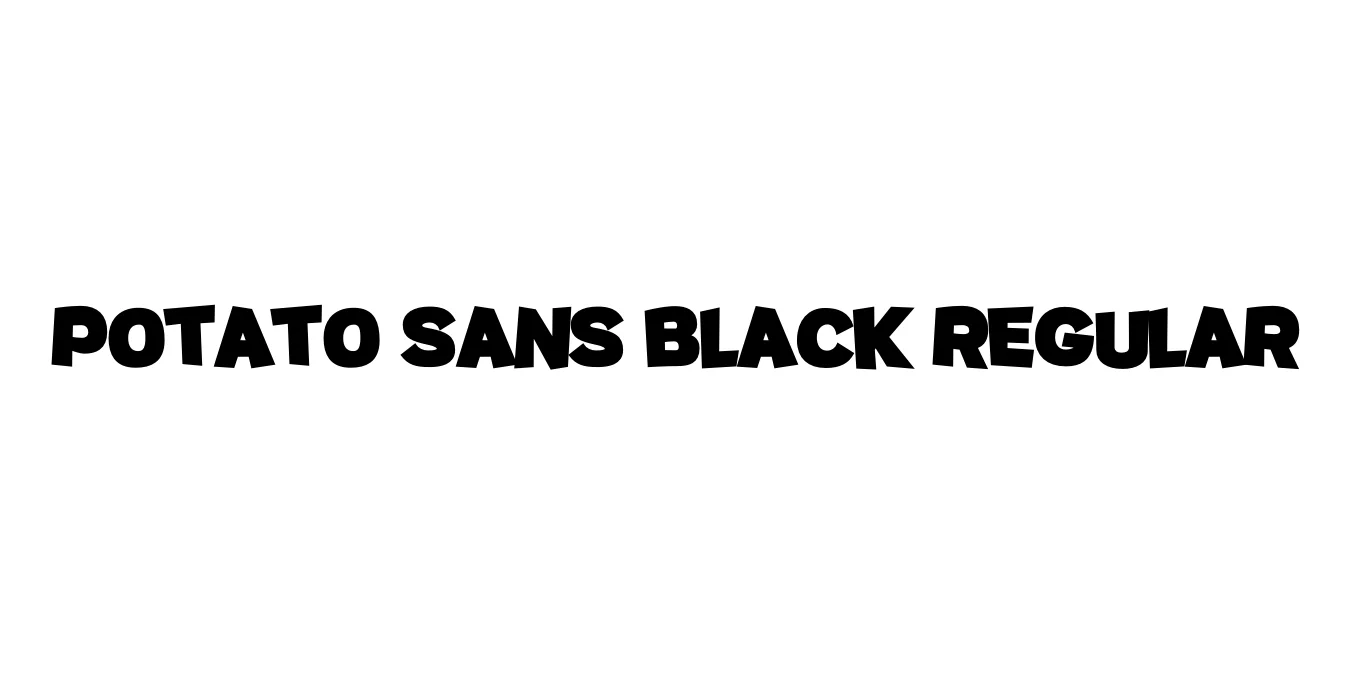
Potato sans Black Regular
Designed by Suleiman
Potato Sans Black Regular is a distinctively playful and rounded sans-serif typeface designed to inject personality into modern design projects. Characterized by its soft edges and robust, heavy stroke weight, this font manages to maintain a sense of approachable friendliness while still commanding significant visual attention. Its organic silhouette reflects a unique balance between geometric precision and hand-lettered charm, making it stand out in a crowded market of rigid typefaces.
The development of the Potato Sans family focused on providing designers with a versatile tool for high-impact branding and contemporary packaging. The Black weight is particularly effective for large-scale displays, headlines, and logos where a bold, confident statement is necessary. Its consistent line weights and smooth terminals ensure excellent legibility across various resolutions, making it a favorite for both digital social media content and traditional print media.
Potato sans Black Regular Best Uses
Ideal for creating warm, approachable, and memorable corporate identities.
Perfect for food, toy, or lifestyle product labels that require a friendly touch.
Excellent for high-impact headlines and eye-catching Instagram graphics.
Highly effective for posters, banners, and large-scale outdoor advertising.